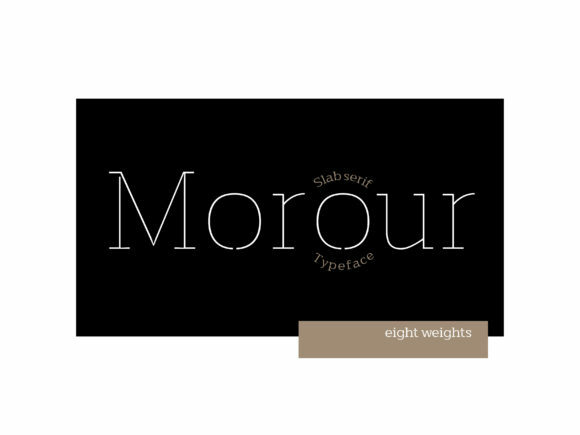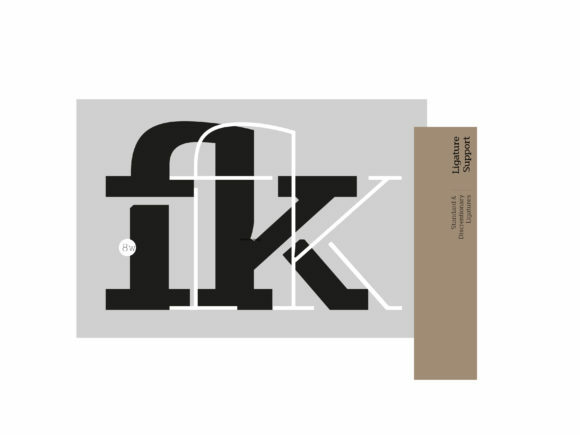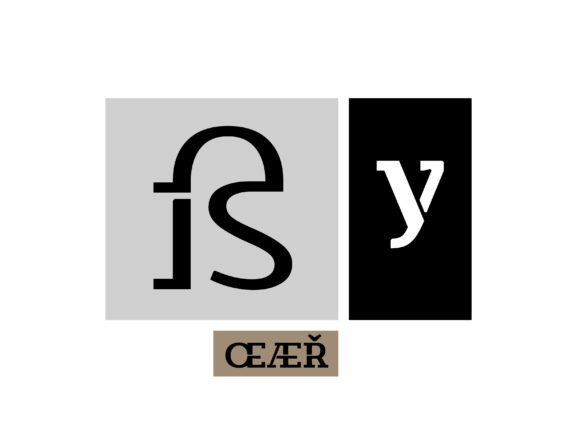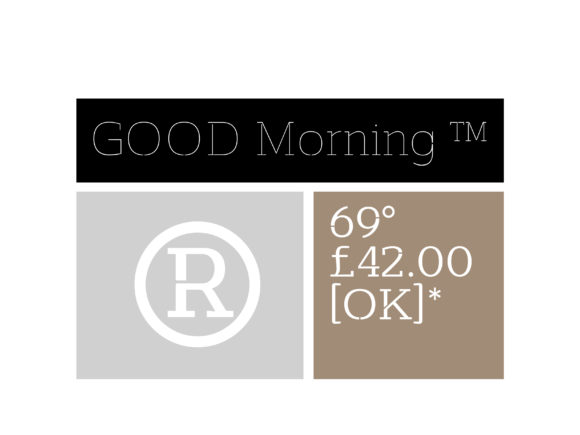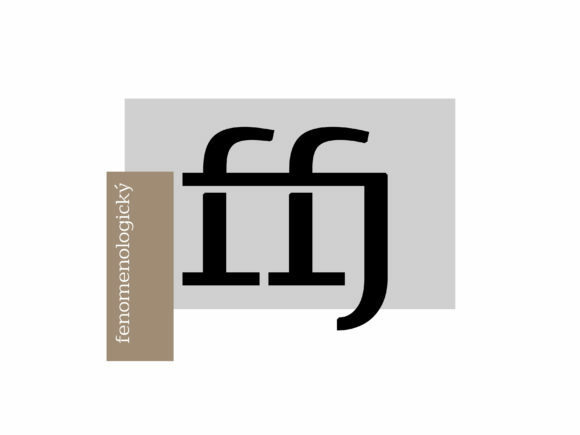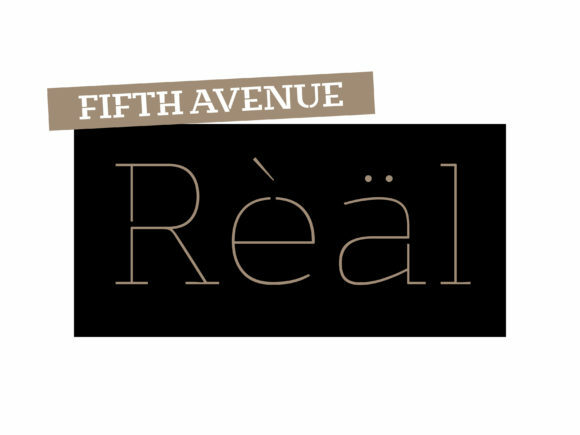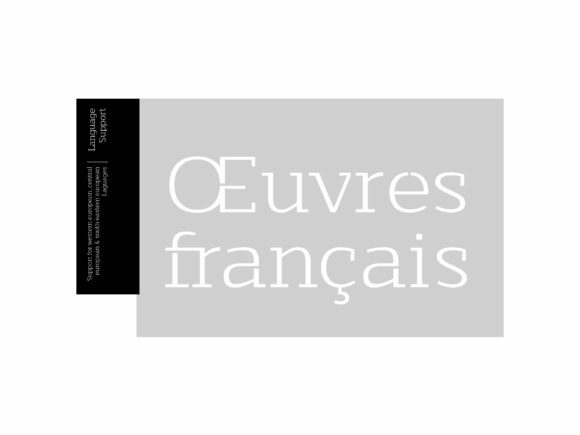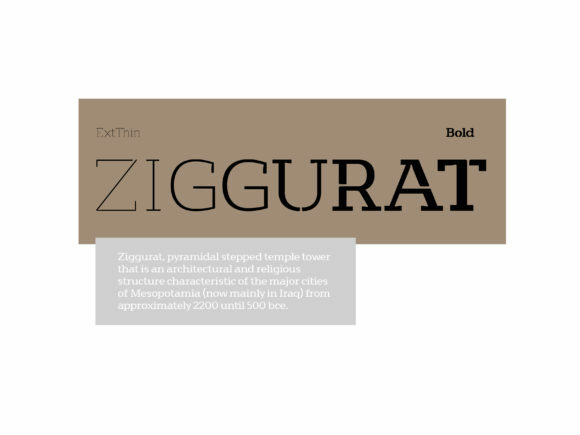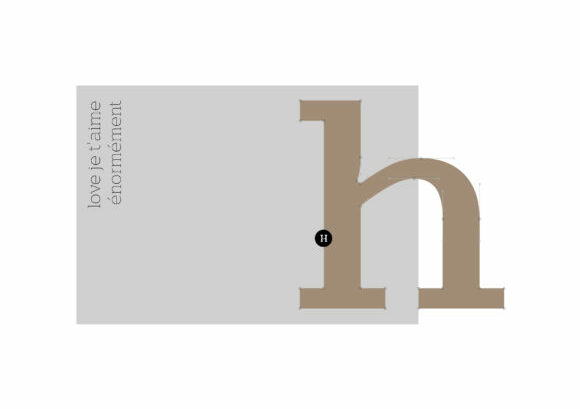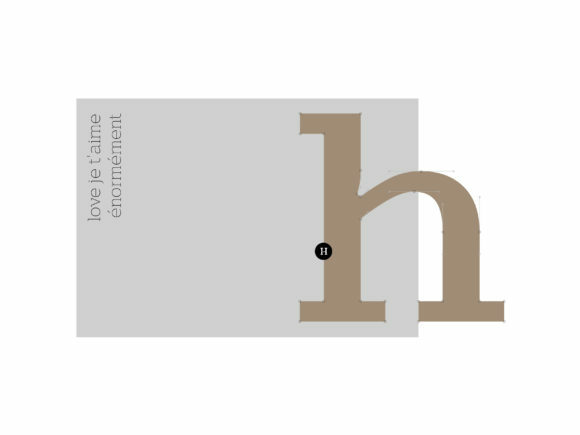
in UncategorizedMorour FontAbout Morour Font 80 Views View Gallery 10 images MOROUR FONT SPECIMENMorour is a bold and authentic slab serif font. This font reads as strong, confident, and dynamic and can elevate each of your designs. Morour Written by canyonadmin Leave a Reply Cancel replyYour email address will not be published. Required fields are marked *Comment *Name * Email * Website Save my name, email, and website in this browser for the next time I comment.